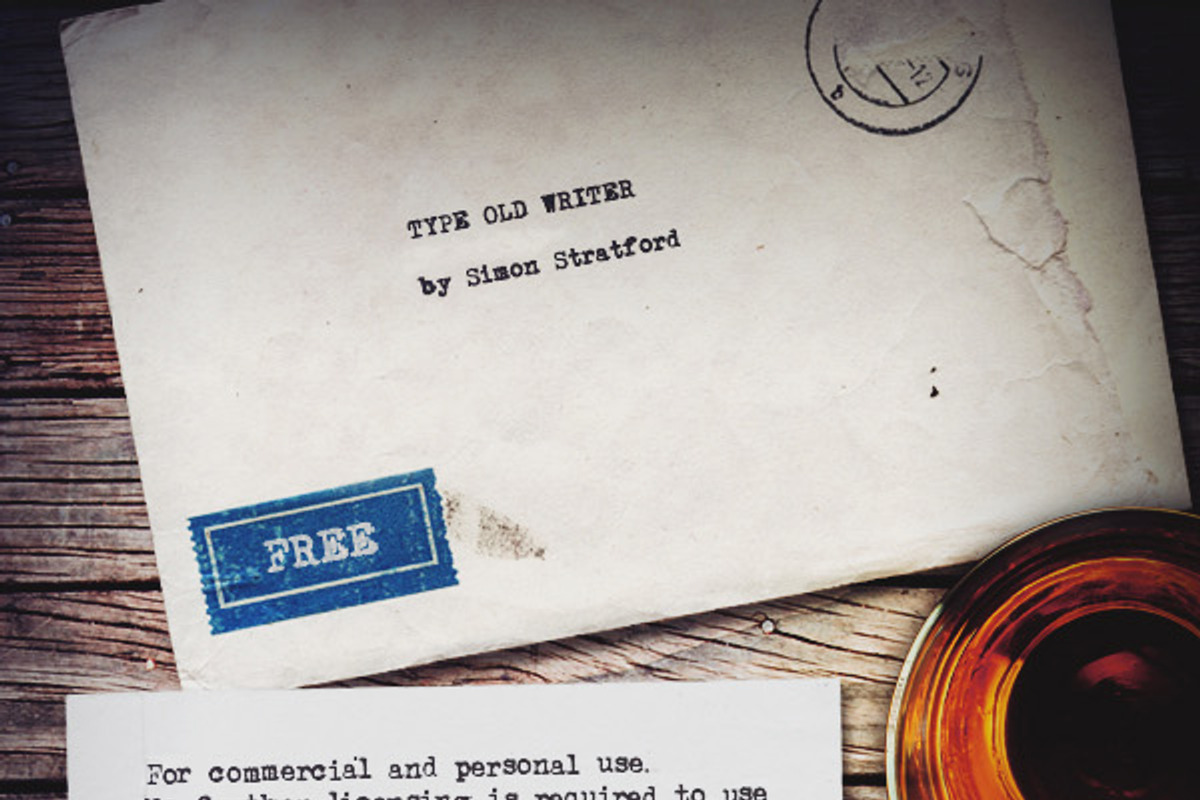
Typewriter font Type Old Writer
Typewriter font Type Old Writer by Itsmesimon is a font selected for branding, posters, packaging, typography.
Why Typewriter font Type Old Writer is worth a look
Typewriter font Type Old Writer by Itsmesimon fits naturally into Branding, posters, packaging, typography.